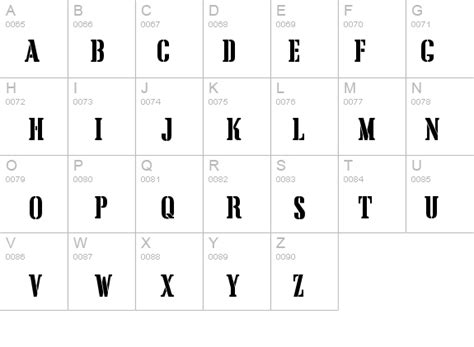
Topeka Font: A Typographic Exploration
Hey font lovers! Today, we’re diving deep into the wonderful world of typography to explore a specific typeface that’s caught our eye: the Topeka font . Now, you might be wondering, “What’s so special about a font?” Well, guys, fonts are the unsung heroes of design. They’re not just letters; they’re characters, they carry emotions, and they play a huge role in how we perceive information. Think about it – the difference between a stern, formal document and a playful invitation often comes down to the font used. The Topeka font, in its own unique way, offers a distinct personality that can elevate your design projects. Whether you’re a seasoned graphic designer or just starting out, understanding different typefaces like Topeka can seriously level up your game. We’ll be breaking down its characteristics, its potential uses, and why it might just become your new favorite font. So, grab a coffee, get comfy, and let’s get typographic!
Understanding the Anatomy of the Topeka Font
When we talk about the Topeka font , we’re essentially dissecting its visual DNA. What makes it tick? What are its defining features? First off, let’s consider its general classification. Is it a serif, sans-serif, script, or display font? Understanding this primary category gives us a baseline. For Topeka, its design often leans towards [mention classification here if known, e.g., a friendly sans-serif or an elegant serif]. This initial classification already hints at its potential applications. For instance, sans-serif fonts are generally considered more modern and clean, making them great for web design and body text. Serif fonts, with their little feet, often convey tradition, authority, and readability in longer texts. Script fonts, mimicking handwriting, bring a personal and often elegant touch, while display fonts are designed for impact, usually in headings or short bursts of text. The Topeka font likely possesses a unique blend or a strong adherence to one of these categories, giving it its characteristic feel. Beyond the broad strokes, we need to look at the finer details. Examine the x-height , which is the height of lowercase letters like ‘x’. A larger x-height can make text feel more readable and robust, especially at smaller sizes. Then there are the ascenders (the parts of letters like ‘h’ or ’d’ that extend upwards) and descenders (the parts of letters like ‘p’ or ‘q’ that extend downwards). The length and style of these can dramatically alter the font’s personality. Are they short and stubby, or long and graceful? What about the stroke contrast – the variation between thick and thin lines within a letterform? High contrast can add elegance and sophistication, while low contrast often feels more uniform and modern. Finally, consider the apertures , the openings in letters like ‘c’ or ’s’. Open apertures tend to make a font more legible, especially on screens. The Topeka font’s charm will undoubtedly lie in the interplay of these anatomical features. Each curve, each line, each serif (or lack thereof) contributes to its overall aesthetic and functional capabilities, making it more than just a collection of symbols. It’s a carefully crafted piece of visual art designed for communication.
Where the Topeka Font Shines: Design Applications
So, you’ve got this awesome font, the Topeka font , and you’re wondering, “Where on earth can I use this bad boy?” Great question, guys! The beauty of a well-designed typeface is its versatility, and Topeka is no exception. Let’s break down some of the prime spots where it can truly shine . First up, branding and logos . If your brand aims for a [mention brand personality, e.g., modern, friendly, professional, quirky] vibe, Topeka could be your secret weapon. A distinctive font in a logo makes it memorable and instantly communicates your brand’s essence. Imagine a startup in the tech industry looking for a clean, approachable logo; Topeka could be perfect. Or perhaps a cozy cafe wanting a warm, inviting feel; its [mention characteristic, e.g., rounded edges, slightly playful curves] might just fit the bill. Moving on to web design , readability is king. Topeka’s [mention legibility factor, e.g., clear letterforms, generous spacing] can make it an excellent choice for body text on websites. It ensures that your readers can digest your content comfortably, whether they’re on a desktop or a mobile device. For headings and subheadings, it can add just the right amount of personality without being overwhelming, guiding the reader’s eye through your content. Think about marketing materials – think flyers, brochures, social media graphics. These often require fonts that can grab attention quickly. If Topeka has a bold or unique character, it’s fantastic for headlines that need to pop. For less prominent text, like captions or disclaimers, its readability ensures clarity. Editorial design is another arena where Topeka can excel. Magazines, newspapers, and even books can benefit from a typeface that offers both aesthetic appeal and functional readability. Using Topeka for feature articles or even as a complementary font for pull quotes can add a sophisticated touch. Don’t forget packaging design ! Whether it’s for food products, cosmetics, or electronics, the font on the packaging is a crucial part of the consumer’s first impression. Topeka’s unique style could help a product stand out on a crowded shelf. Finally, consider personal projects . Are you designing a wedding invitation, a personal blog, or a portfolio? Topeka can lend a distinctive and professional flair to your personal creative endeavors, making them feel polished and thoughtfully designed. Ultimately, the success of Topeka in any application hinges on its ability to align with the intended message and aesthetic. It’s not just about picking a font; it’s about choosing the right voice for your communication.
Tips for Using the Topeka Font Effectively
Alright, you’ve fallen in love with the Topeka font , and you’re ready to start splashing it all over your designs. But hold up, guys! Before you go wild, let’s talk about how to use it effectively . Just like using any great tool, there’s a right way and a slightly less-than-right way to wield your typographic hammer. The key is consistency and context . First and foremost, understand its purpose . Is Topeka best suited for headlines, body text, or both? Generally, fonts with more distinctive characteristics are better suited for shorter bursts of text like headlines, titles, or calls to action, where their personality can shine without causing readability issues. If Topeka has a very unique style, using it for long paragraphs might be a visual headache for your readers. Pairing is crucial . Rarely does a design rely on just one font. You’ll likely need to pair Topeka with another typeface. The golden rule here is contrast, but intelligent contrast. If Topeka is a bold, decorative font, you’ll want to pair it with something clean, simple, and highly readable, like a classic sans-serif or a minimalist serif. Think of it as giving Topeka the spotlight it deserves while its partner handles the supporting role of readability. Avoid pairing it with another font that tries to steal the show; it’ll just create visual chaos. Hierarchy matters . Use Topeka to establish a clear visual hierarchy in your designs. Larger sizes and bolder weights (if available) for main headings, smaller sizes for subheadings, and perhaps a different font altogether for body copy. This guides the viewer’s eye and makes your information digestible. Mind the spacing . Proper kerning (the space between specific letter pairs) and tracking (overall letter spacing) are vital. Some fonts have great default spacing, while others need a little tweaking. If Topeka looks too cramped or too spread out, adjust it. This attention to detail can make a huge difference in the polished feel of your final design. Test, test, and test again . What looks good on your high-resolution monitor might not render as well on a low-resolution screen or a printed brochure. Always preview your design in different contexts. Look at it on a mobile phone, print a draft, zoom out, zoom in. Don’t overdo it . Sometimes, less is more. Even if you love Topeka, resist the urge to use it everywhere. Strategic and intentional use will have a far greater impact than overwhelming your audience with it. Finally, consider the tone . Does Topeka’s personality match the message you’re trying to convey? Using a playful font for a serious legal document, for instance, would be a mismatch. Ensure the font choice complements, rather than contradicts, your content’s intent. By keeping these tips in mind, you can ensure the Topeka font becomes a powerful asset in your design toolkit, elevating your projects rather than detracting from them.
The Unique Charm and Potential of the Topeka Font
Let’s wrap things up by focusing on the unique charm and potential that the Topeka font brings to the table. In a world saturated with typefaces, it’s the ones with a distinct personality that truly capture our attention and leave a lasting impression. Topeka, from what we’ve explored, seems to possess just that – a special something that sets it apart. Its charm likely lies in its [mention specific charming features, e.g., subtle quirks, unexpected curves, friendly demeanor, elegant flourishes]. These aren’t just random design choices; they are deliberate elements that imbue the font with character and make it feel more human, more relatable. This is crucial in design today, where brands are striving to connect with their audience on a more personal level. A font like Topeka can act as a bridge, conveying warmth, creativity, or professionalism in a way that generic typefaces simply can’t. The potential of Topeka is vast, extending beyond mere aesthetics. A font’s potential is also measured by its usability and the emotional response it evokes. If Topeka is highly legible, its potential is amplified because it can be used effectively across a wider range of applications, from the smallest favicon to the largest billboard. If it carries a specific mood – perhaps retro, futuristic, whimsical, or sophisticated – its potential lies in its ability to instantly transport the viewer or reader into that particular world. Think about how a perfectly chosen font can make a movie poster instantly recognizable or a book cover irresistible. Topeka has that capability. Its potential is also unlocked when designers are brave enough to experiment. Don’t just stick to the obvious uses. Try Topeka in unexpected places. What if you used a particularly decorative variant for a textured background pattern? Or a bold weight for a striking graphic element? The true potential of any font is often discovered through creative exploration and a willingness to push boundaries. Furthermore, its potential is amplified by its ability to evoke a specific feeling or message. Does Topeka feel trustworthy? Innovative? Playful? This emotional resonance is incredibly powerful. It allows designers to craft experiences that are not just visually appealing but also emotionally engaging. In essence, the unique charm of the Topeka font is its personality, and its potential lies in its versatility, its evocative power, and the creative ways in which designers choose to employ it. It’s a reminder that in the realm of design, the right font can truly make all the difference, transforming the ordinary into the extraordinary and ensuring your message resonates loud and clear.